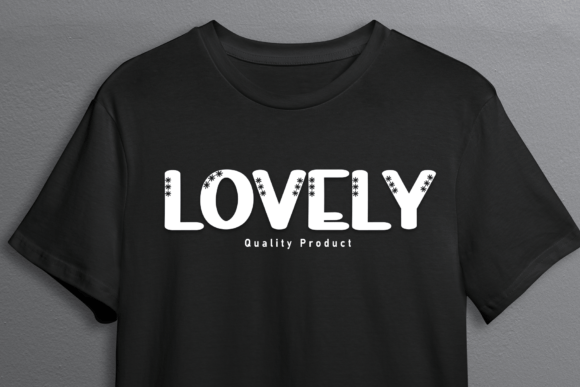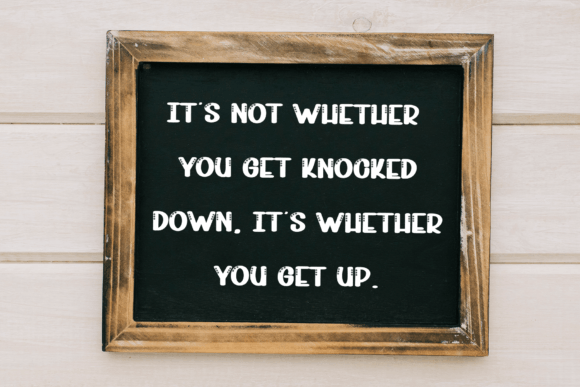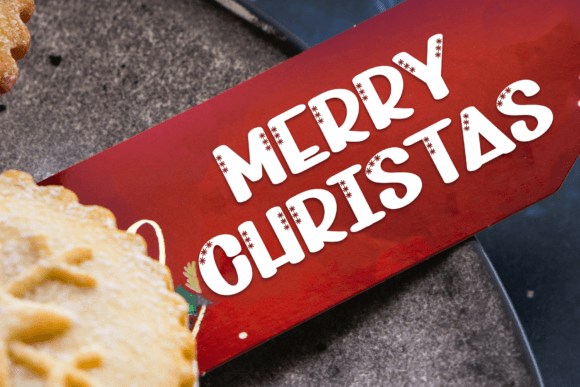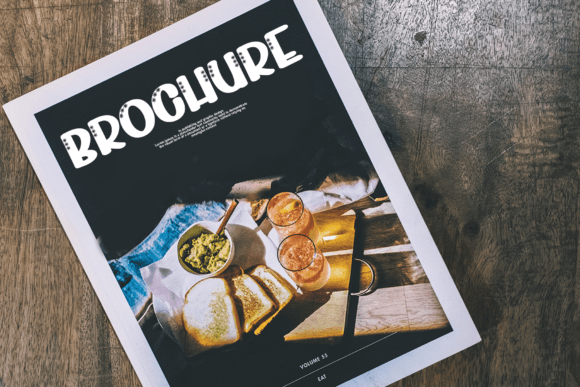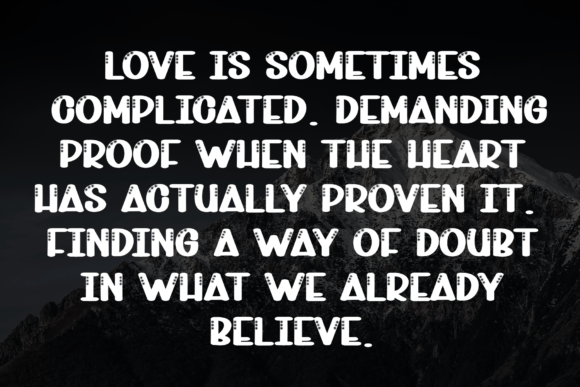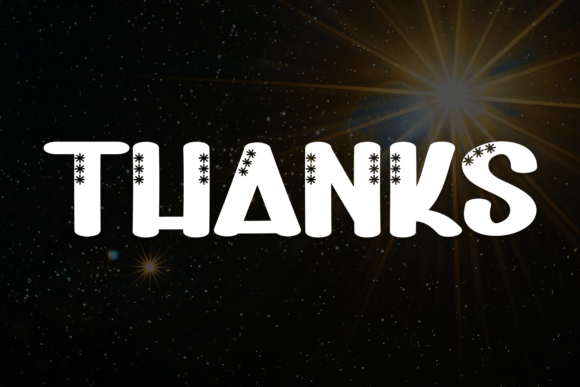
Introduction to Shining Starlight Font
Introducing an adorable and approachable handwritten display font – the epitome of charming and frolicsome elegance.
This font genuinely shines while crafting wedding invitations, greeting cards, or any design craving a sprinkle of delightful whimsy The inherent sweetness of this font breathes life into your creations, making them come alive with an enjoyable, playful touch.
Key Features of Shining Starlight Font